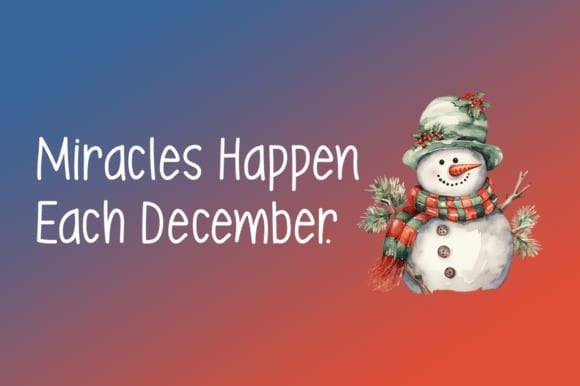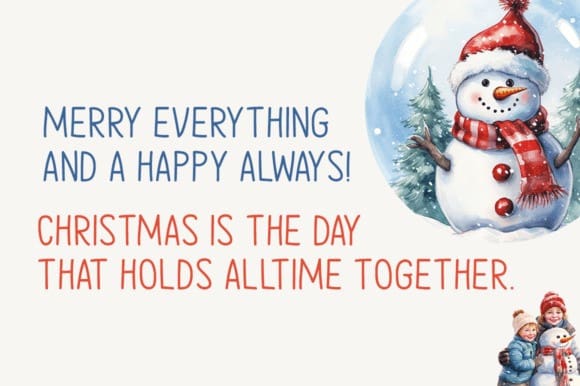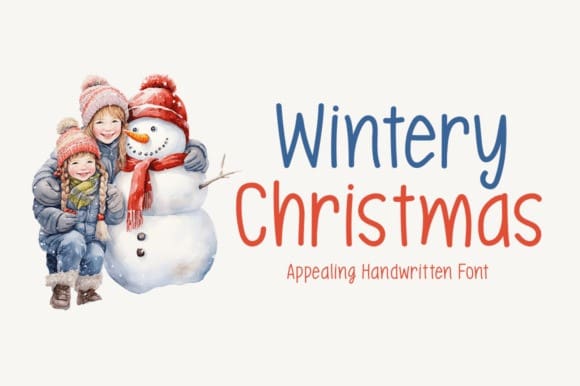
Wintery Christmas Font
Wintery Christmas Font is a font that embodies the spirit of the season with its sweet and approachable handwritten style. Its versatility ensures it’s a perfect fit for a diverse range of design projects, limited only by your imagination.